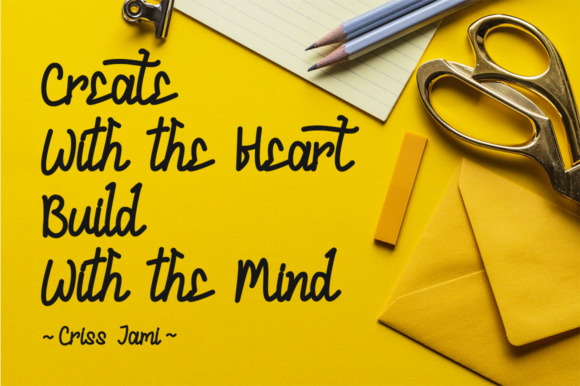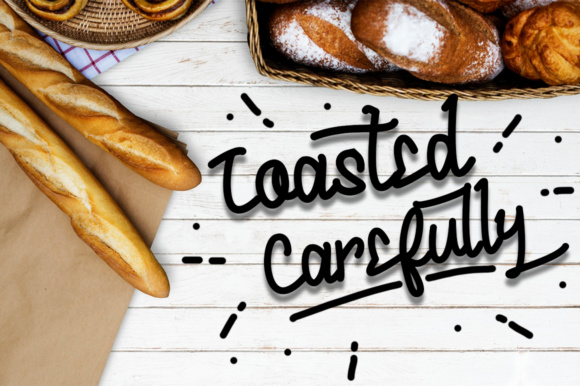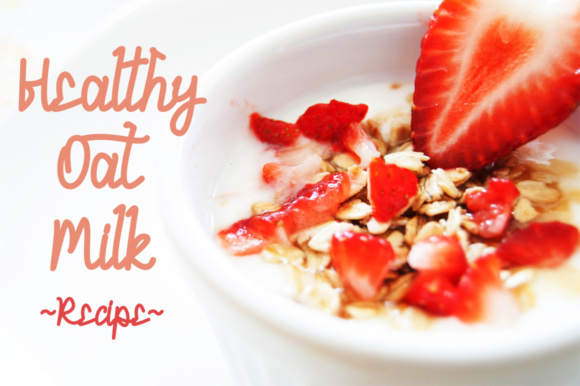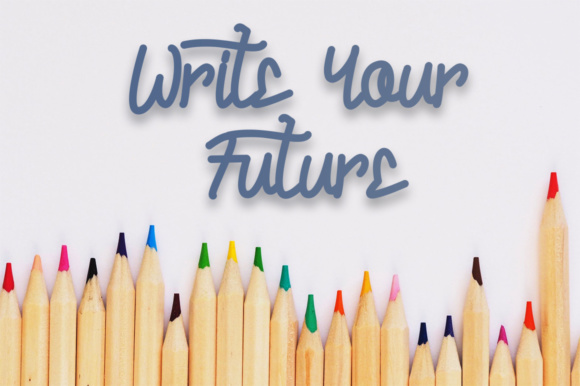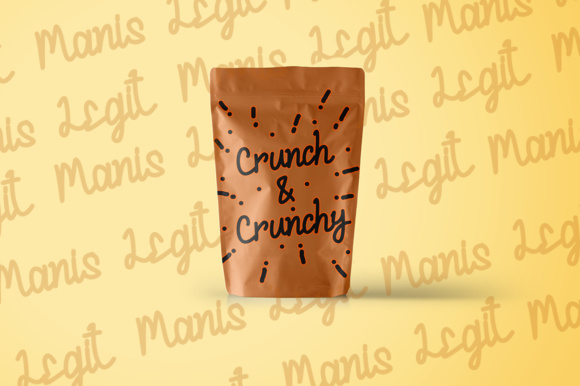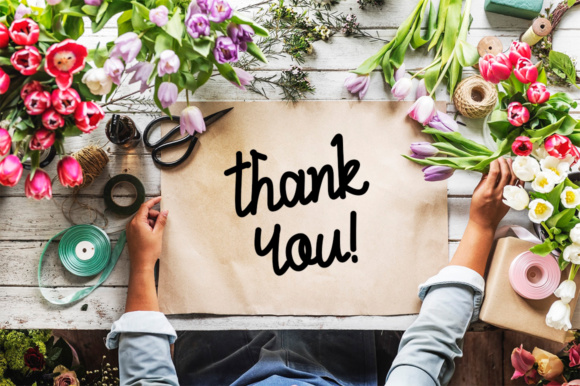
Introduction to Lawlienes Font Font
Fonts play a crucial role in design, and the Lawlienes Font font is a typeface that brings both character and versatility to any project. Whether you’re working on a branding project, a website, or a print design, the Lawlienes Font font offers a unique style that can elevate your work.
The Lawlienes font is a playful, fun script typeface.
Itβs draws itβs inspiration from bold food packaging and lettering on toys .
Key Features of Lawlienes Font Font
Why Choose Lawlienes Font Font?
The Lawlienes Font font is more than just a typeface β it’s a design tool that helps you communicate your message with style and clarity. Its unique character set and versatile design make it suitable for a wide range of applications, from elegant invitations to bold headlines.
With its carefully crafted letterforms and balanced proportions, the Lawlienes Font font ensures readability and visual appeal across all mediums.
What makes Lawlienes Font font special?
The Lawlienes Font font stands out with its unique design, exceptional readability, and versatility across various design applications.